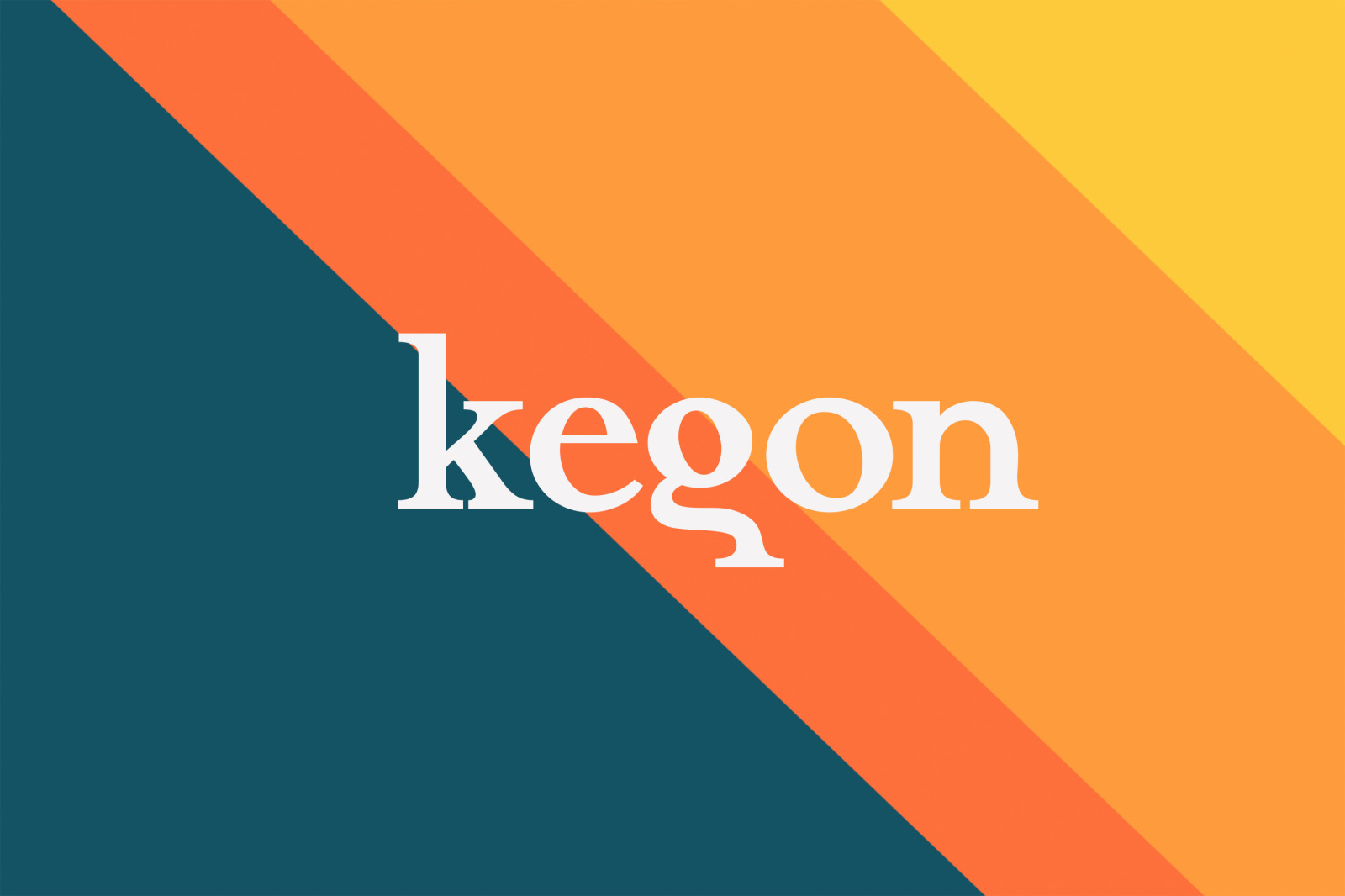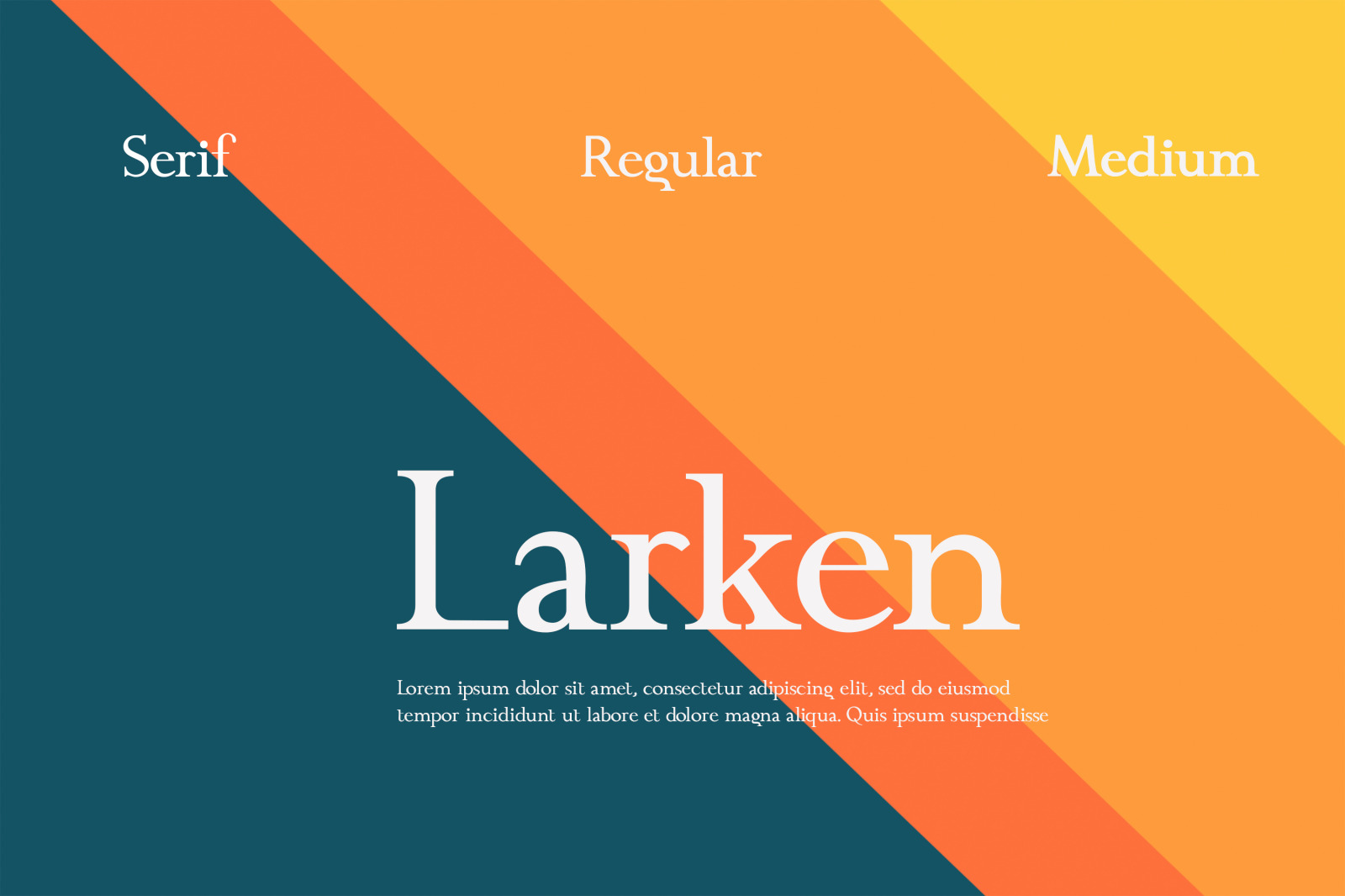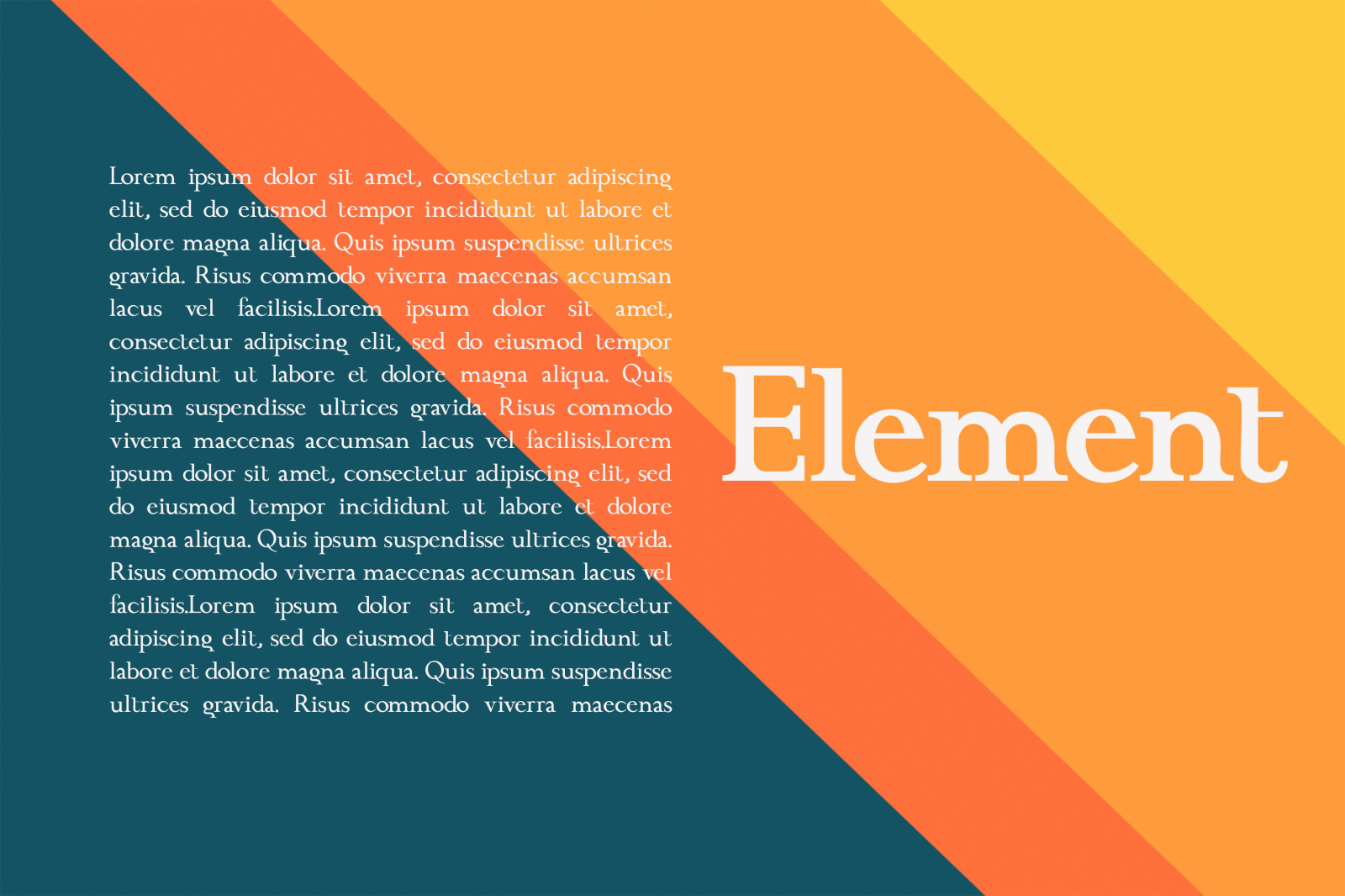
Kegon Font
Kegon is a cool, authentic and modern serif font. This font is ideal for writing web designs, business cards, or pretty much anything else that requires a unique touch.
2 weights included in Kegon typeface : bold and regular